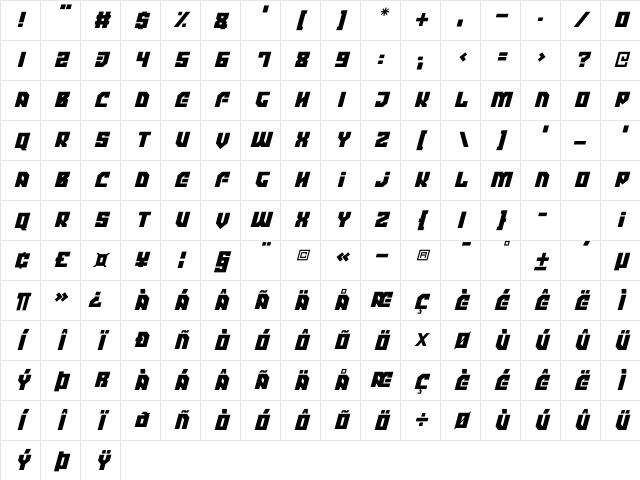
Megadroid is a composed and adaptable typeface that performs quietly and consistently across a wide range of design contexts. The slanted form adds forward momentum and visual energy.